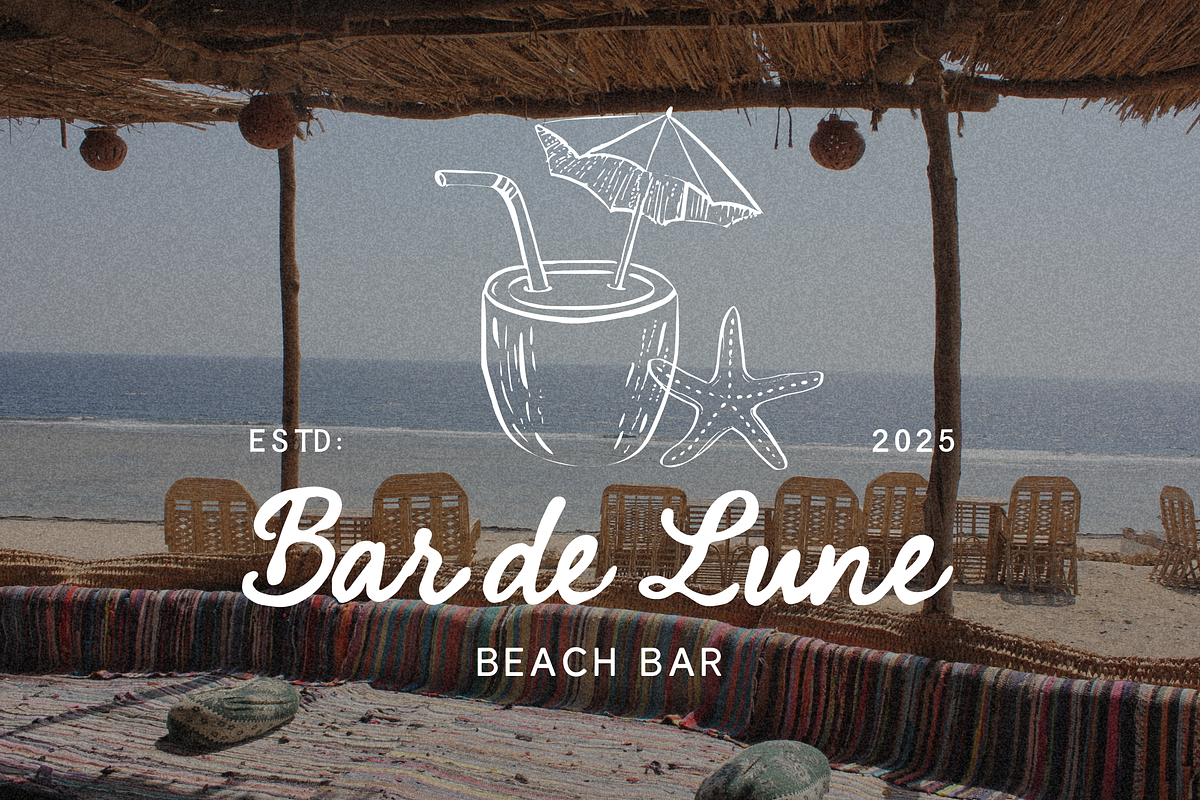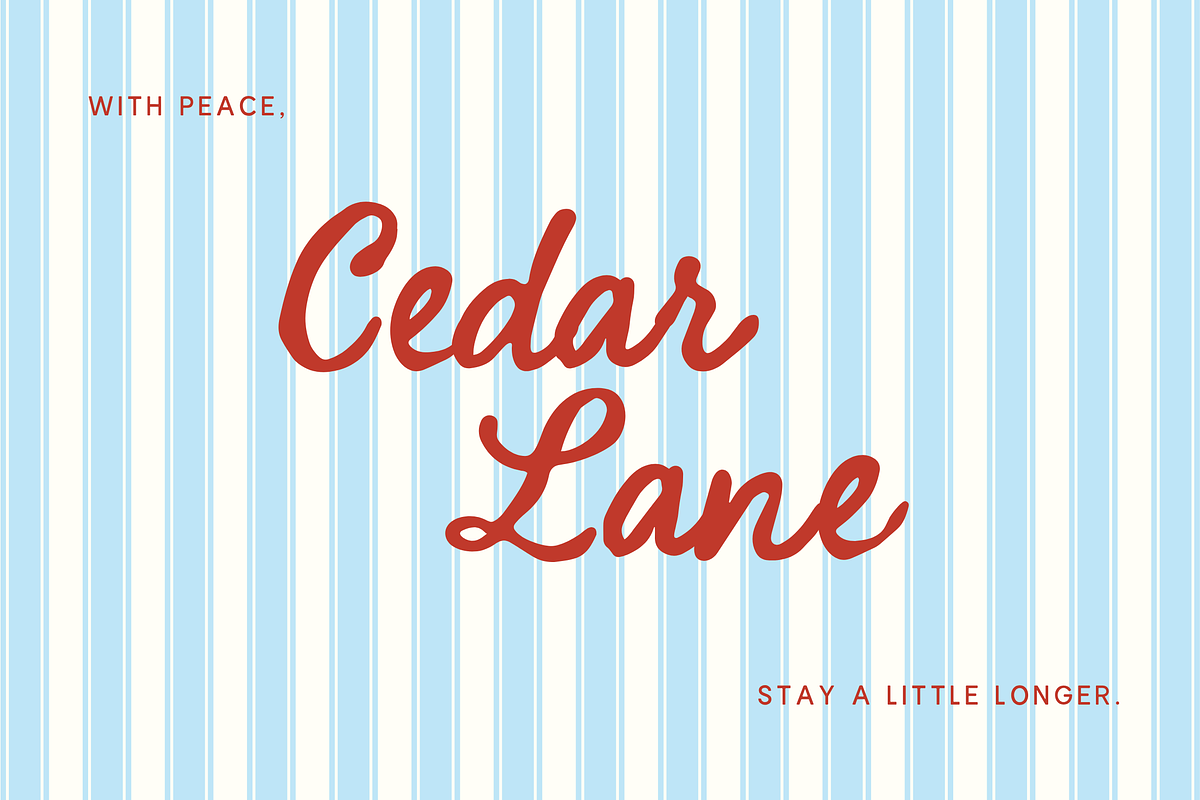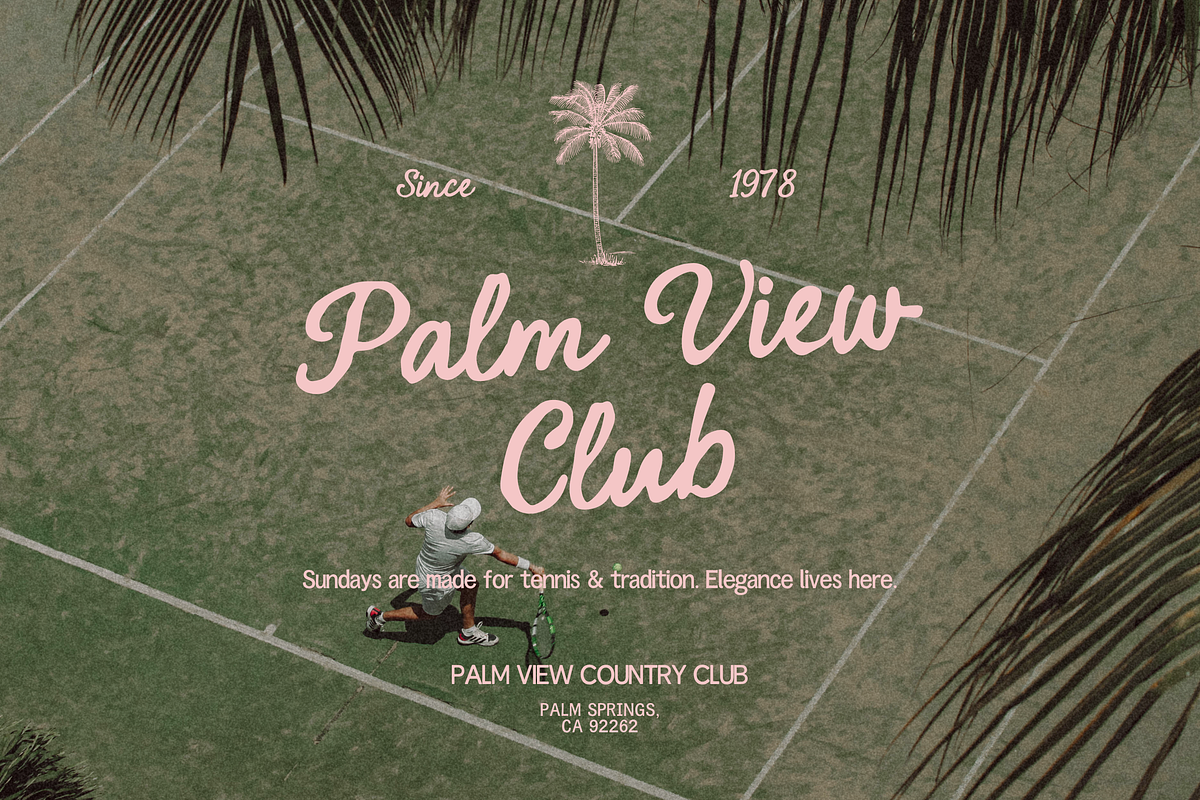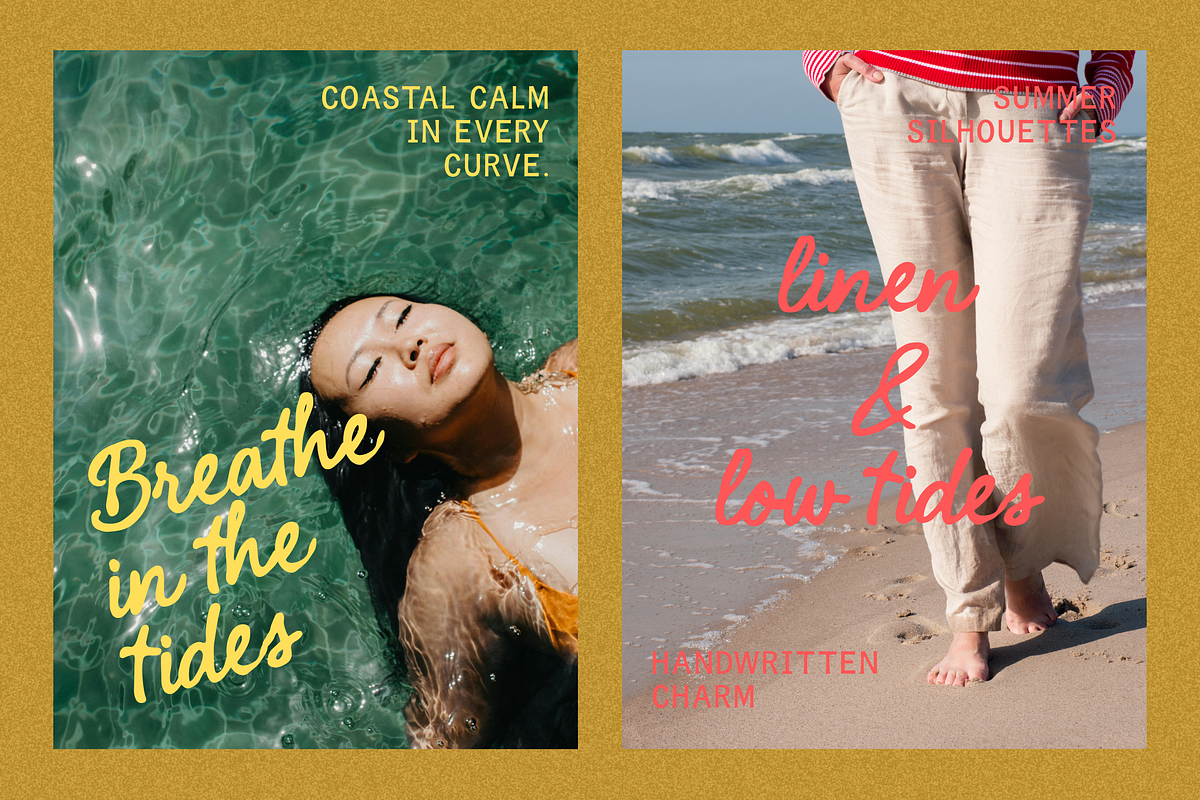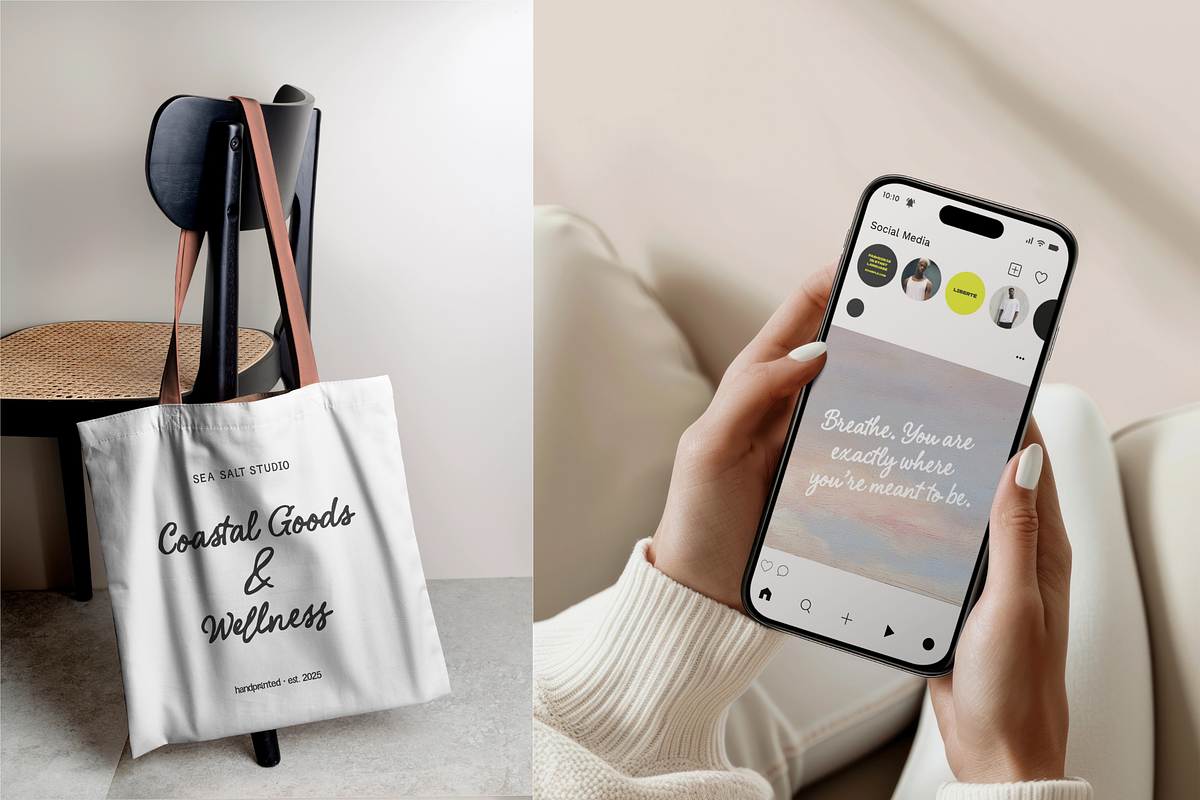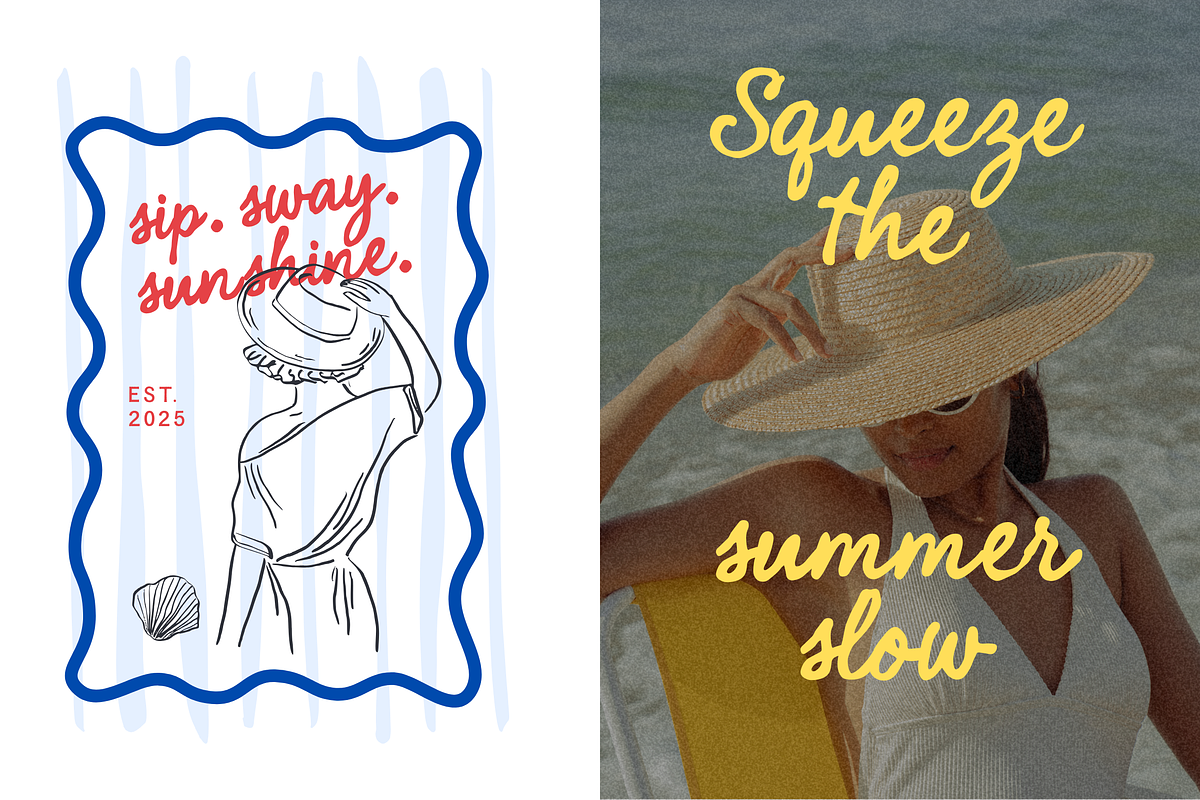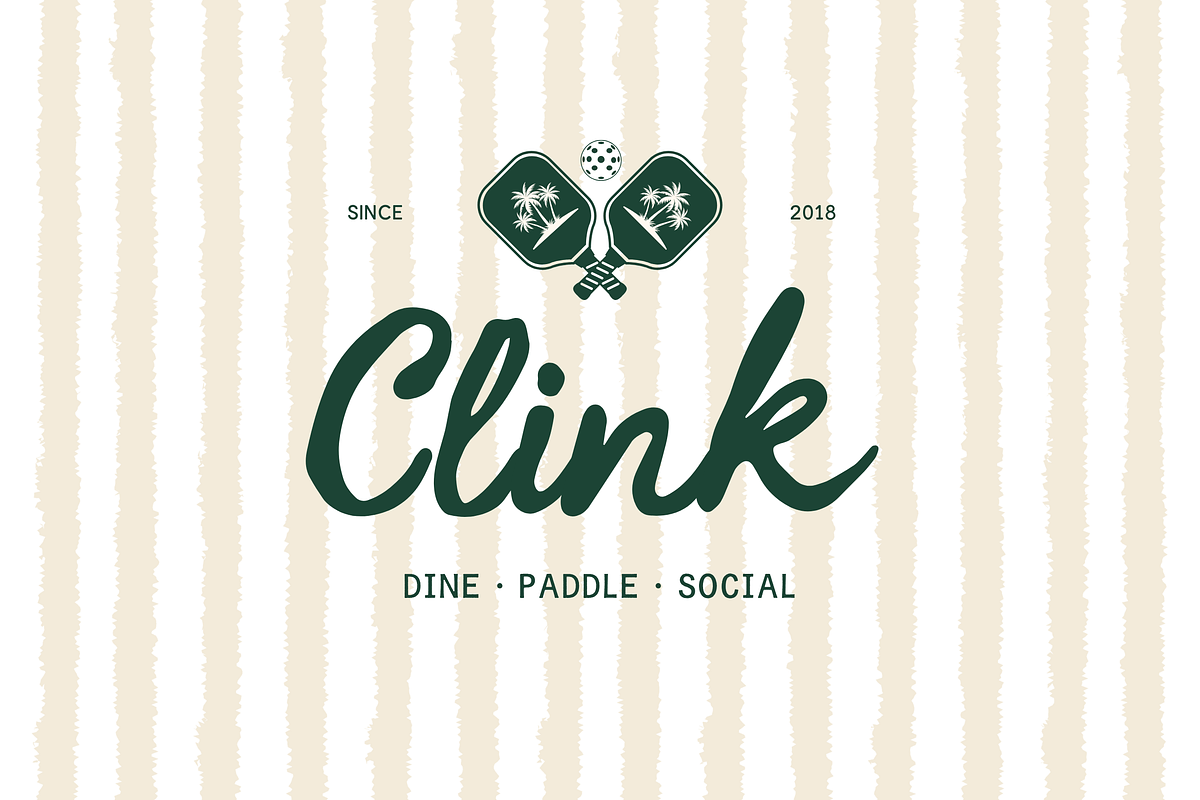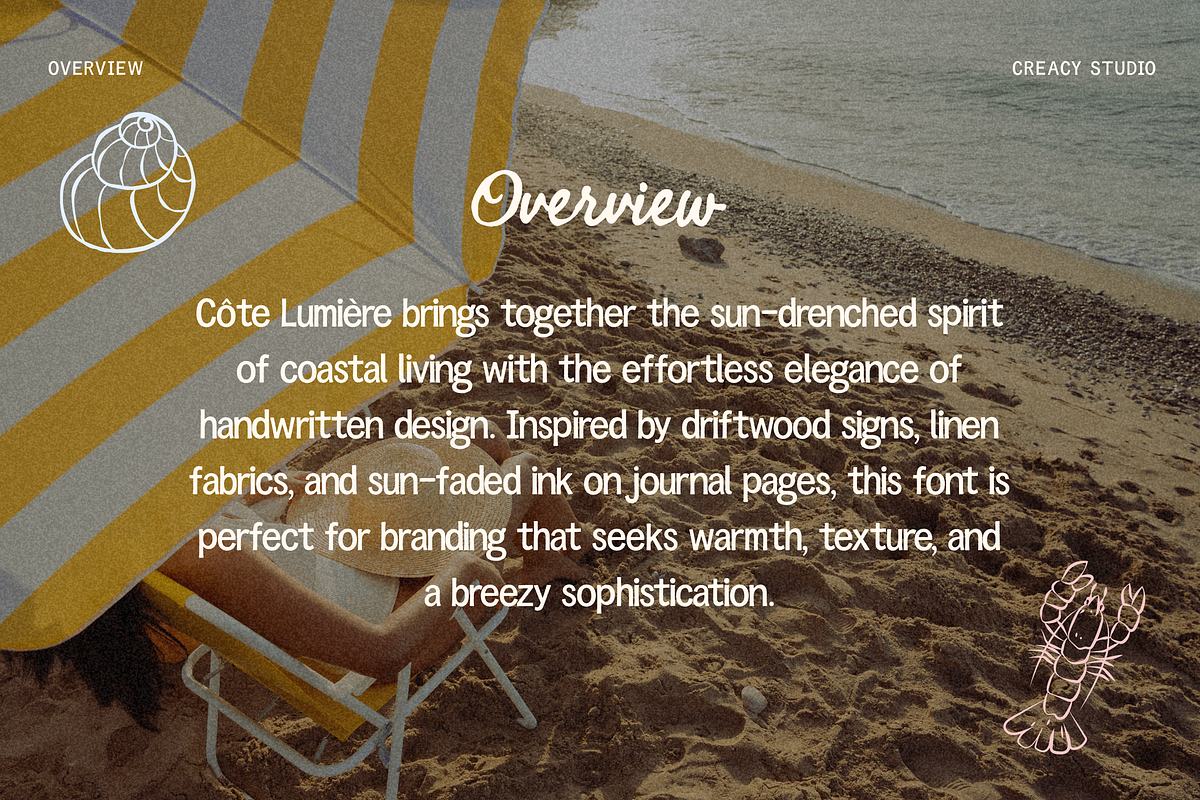
Côte Lumière – Coastal Script Font
Côte Lumière – Script Font
Light, Free, Sun-Kissed.
Côte Lumière is a handwritten script font inspired by coastal bohemian living. With breezy curves and soft sun-faded strokes, this font brings the relaxed charm of seaside summers to your design work.
Perfect for branding that craves warmth, texture, and elegance—from beach bars and boutique packaging to lifestyle quotes and travel journals.
Uppercase & lowercase script letters
Coastal branding
Summer posters & packaging
Handwritten quotes
Social media content
Let Côte Lumière add that mellow coastal glow to your next project.